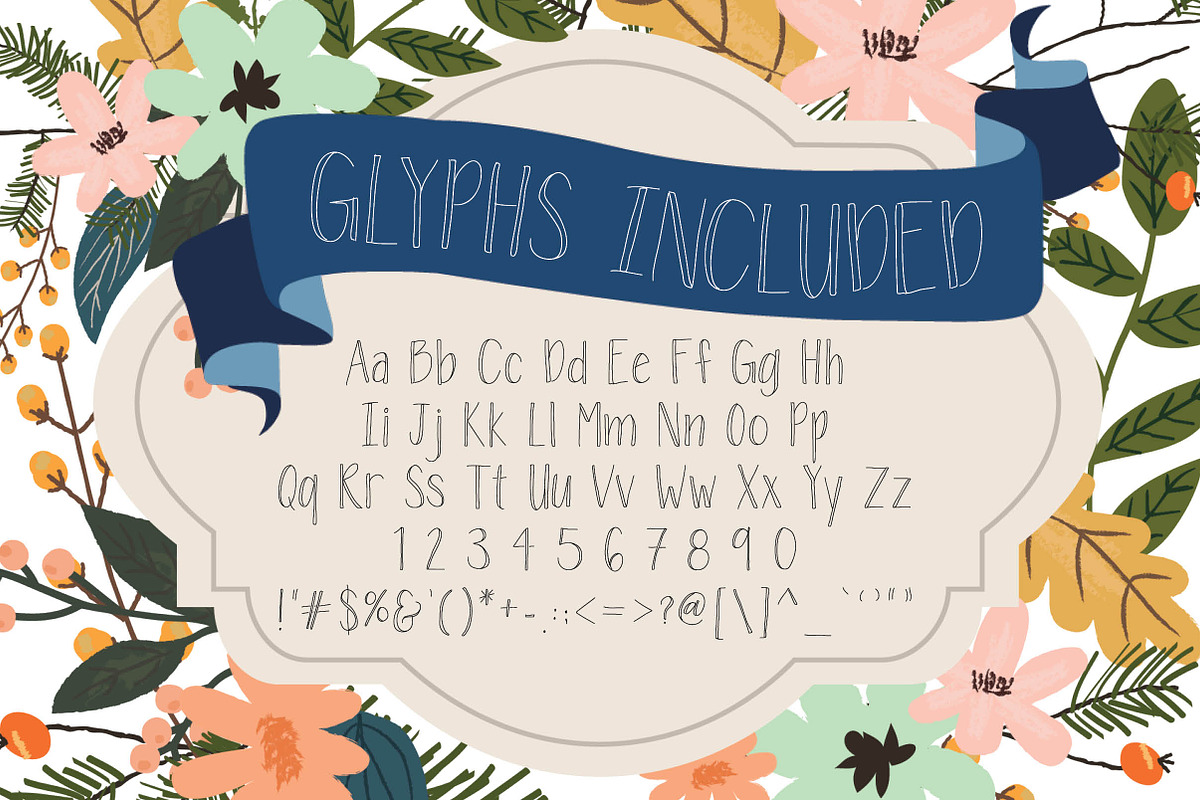
Fabulovely - a fancy sans-serif font
Fabulovely - a fancy sans-serif font by Printable Wisdom is a font selected for branding, posters, packaging, typography.
Why Fabulovely - a fancy sans-serif font is worth a look
Fabulovely - a fancy sans-serif font by Printable Wisdom fits naturally into Branding, posters, packaging, typography.